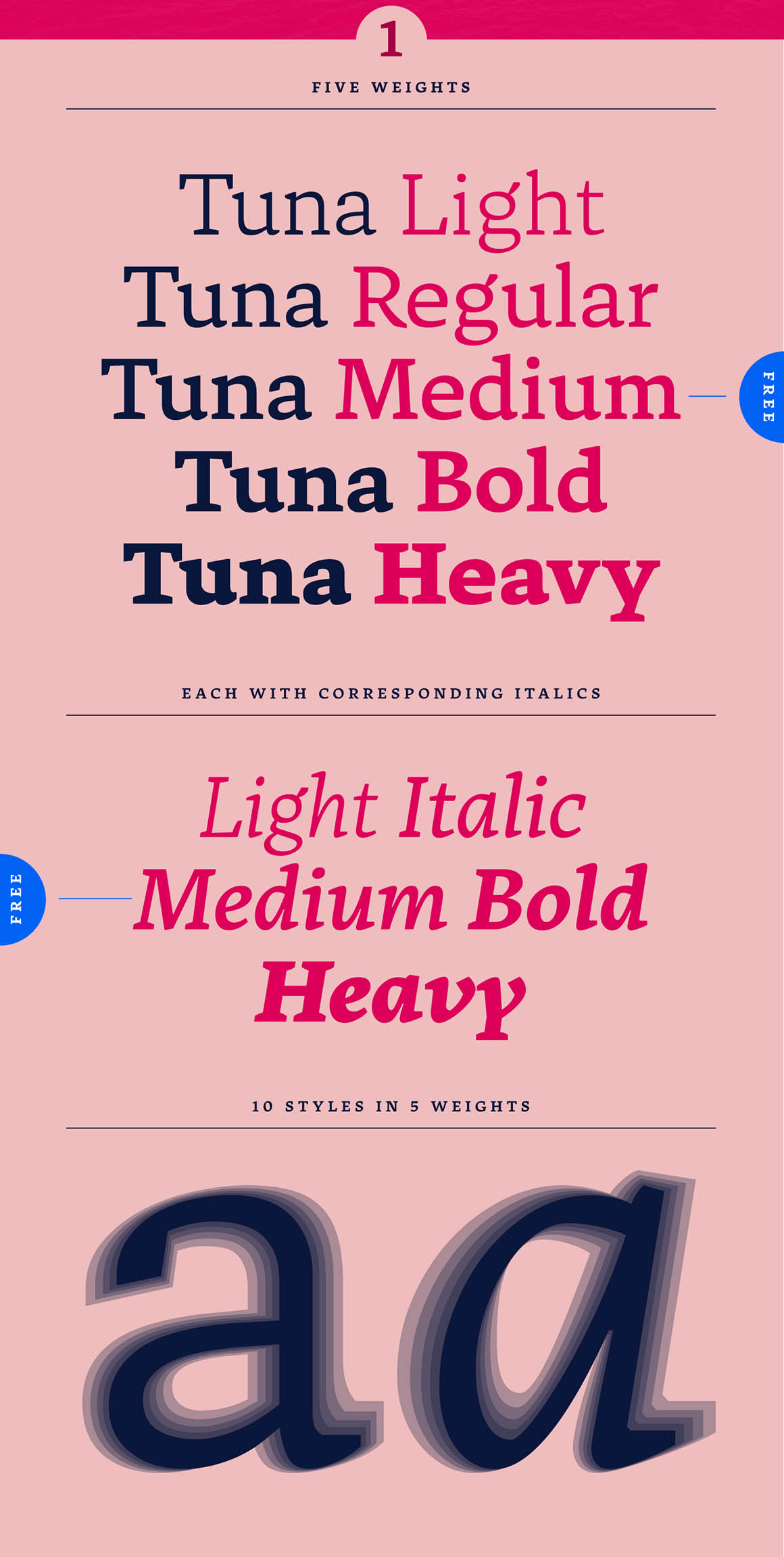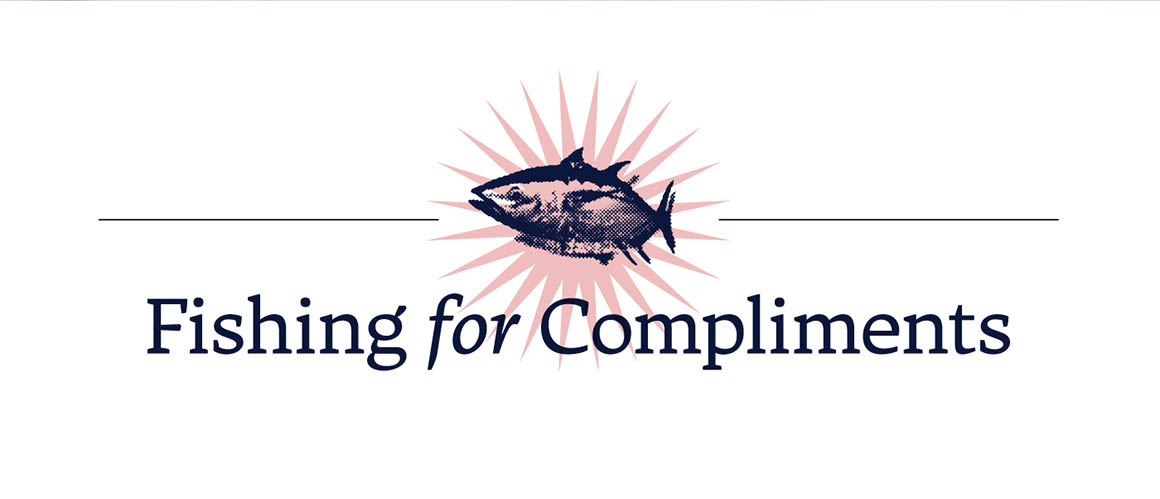
Tuna Medium & Medium Italic – Free Font
Free & retro style sans serif font in 2 versions (medium & medium italic) from Floodfonts type foundry. Download and enjoy 😉